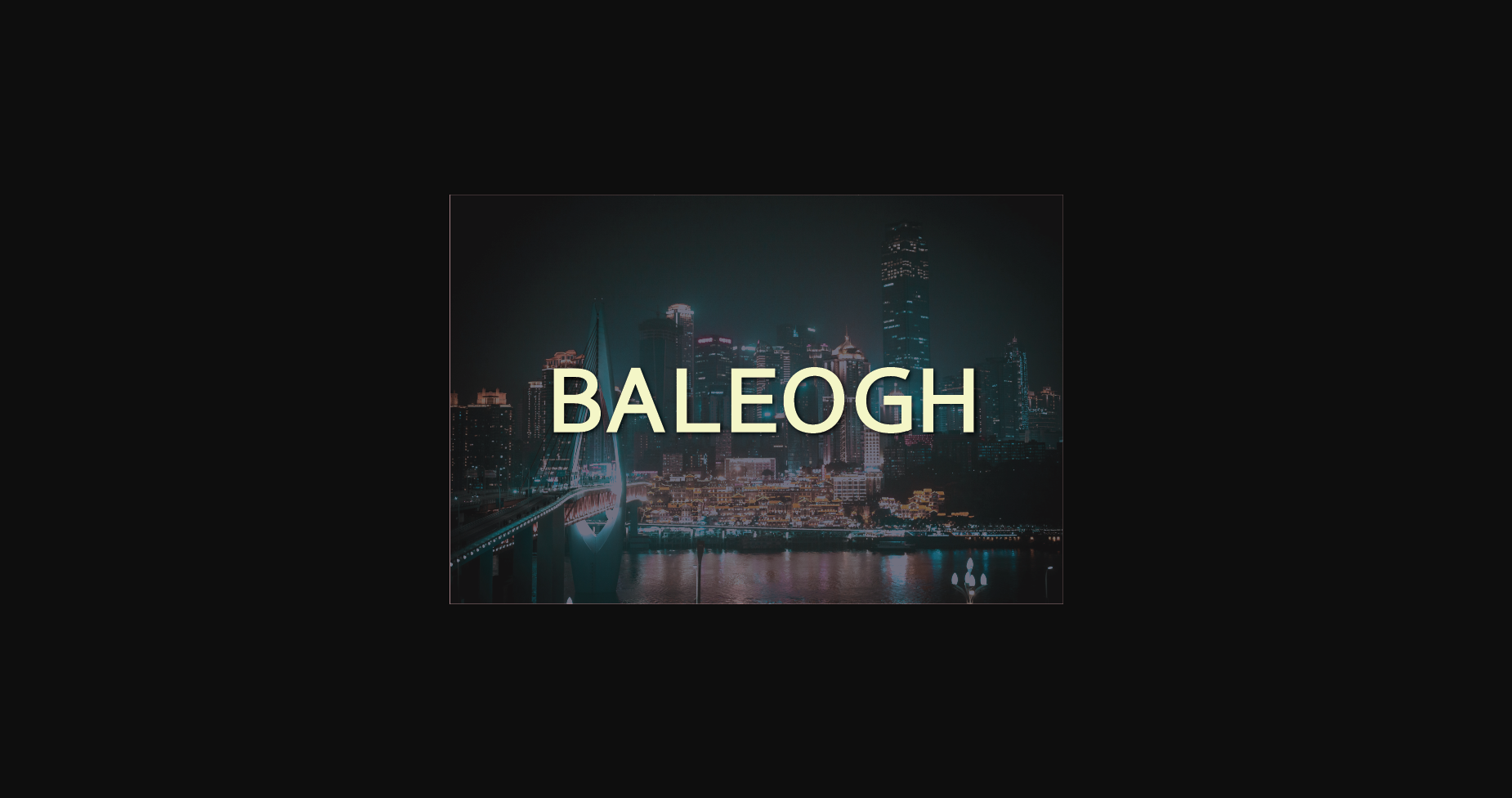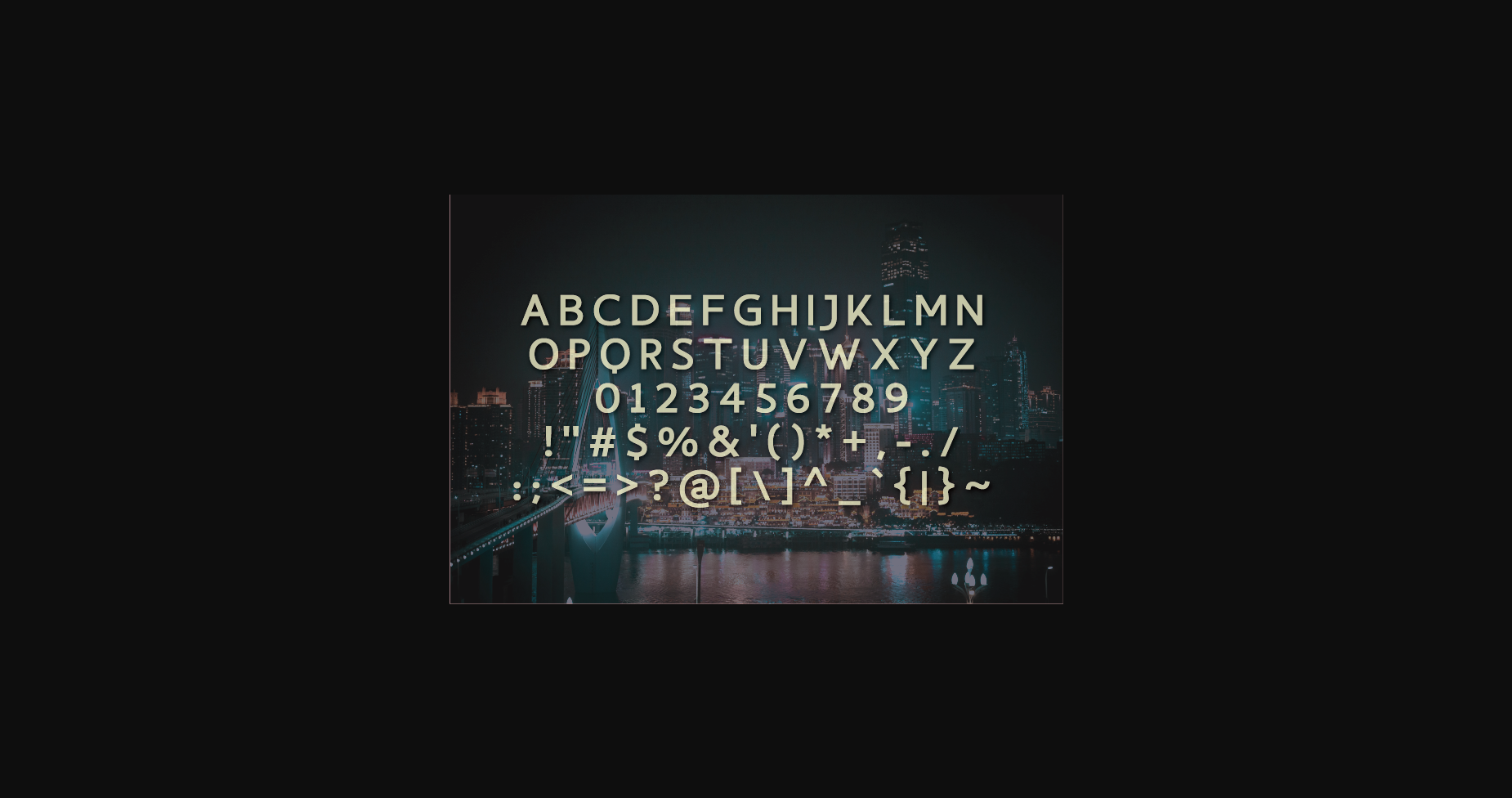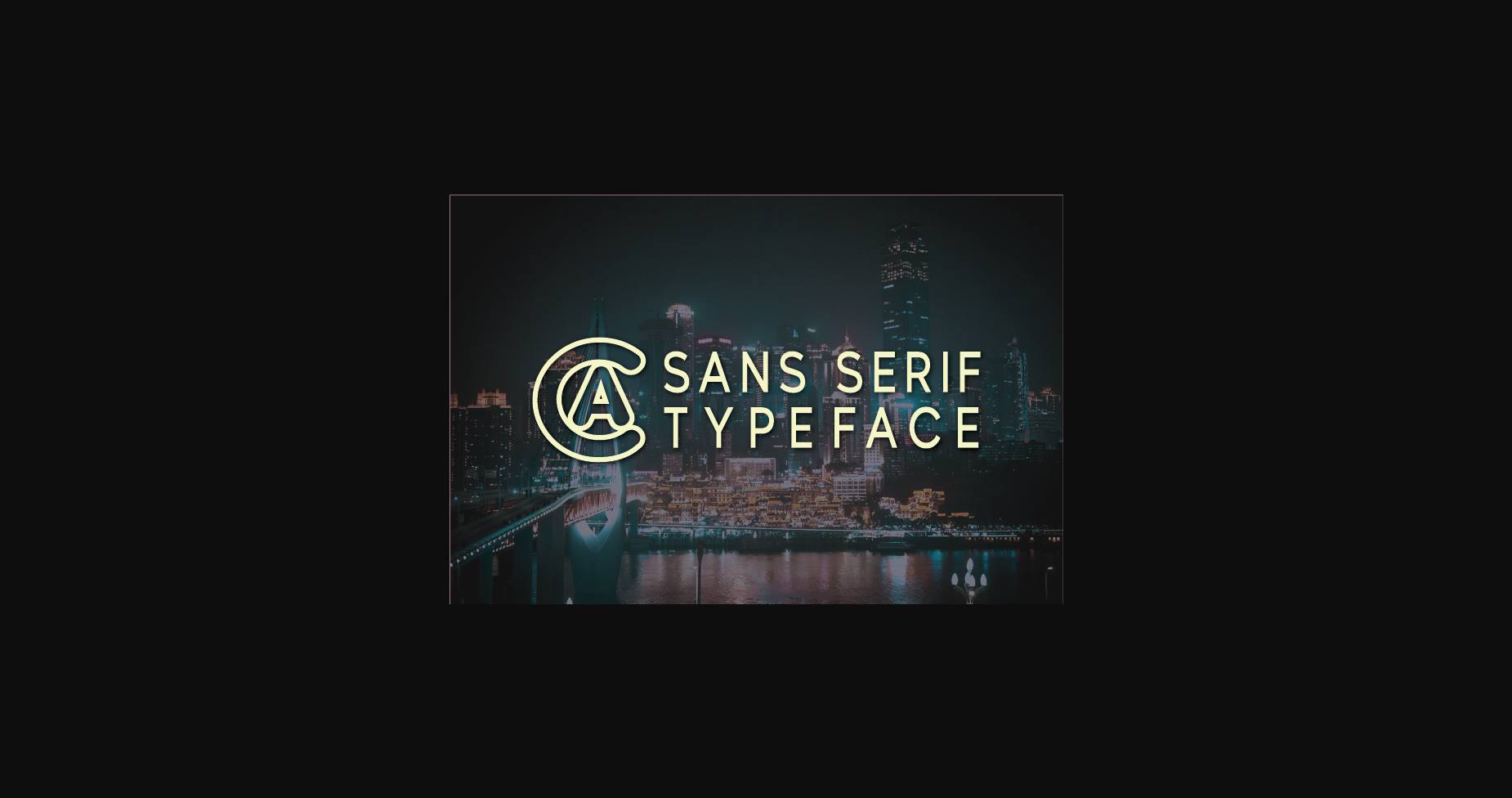
About Baleogh Font
Introducing Baleogh, a modern and classy sans serif typeface.
An extremely versatile font, perfect for logos, weddings, invitations, quotes, advertisements, print, magazines, and more!